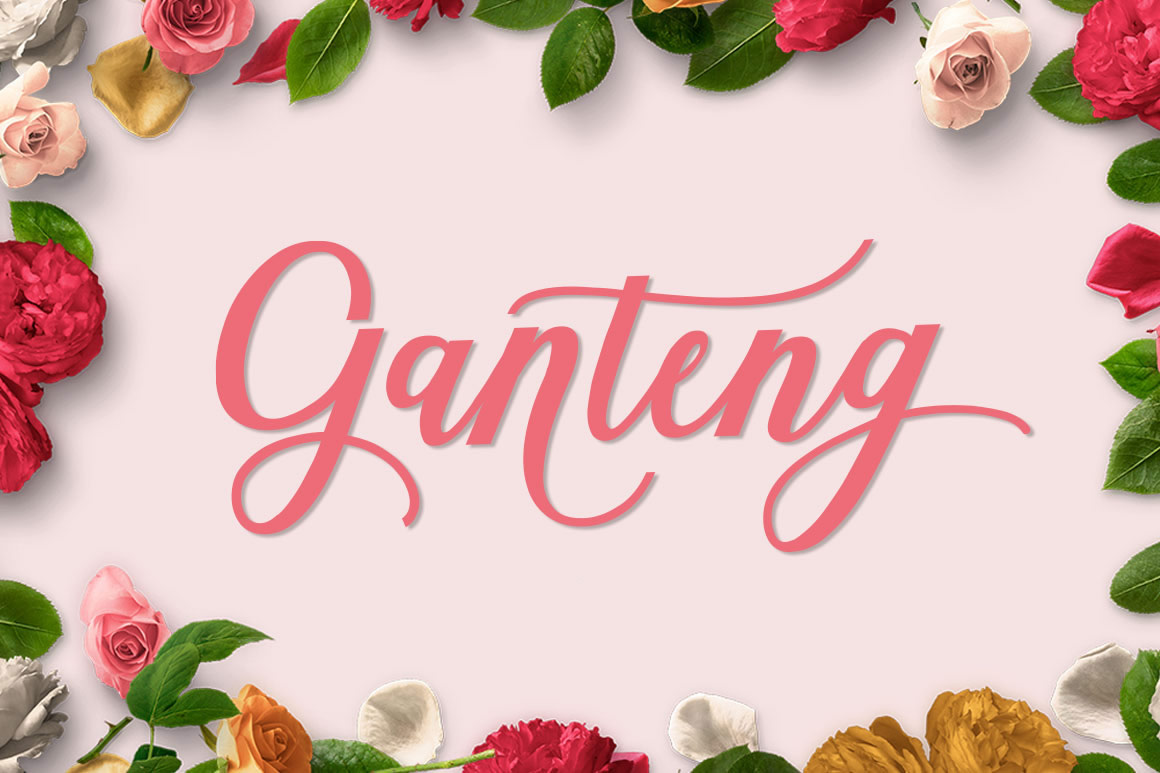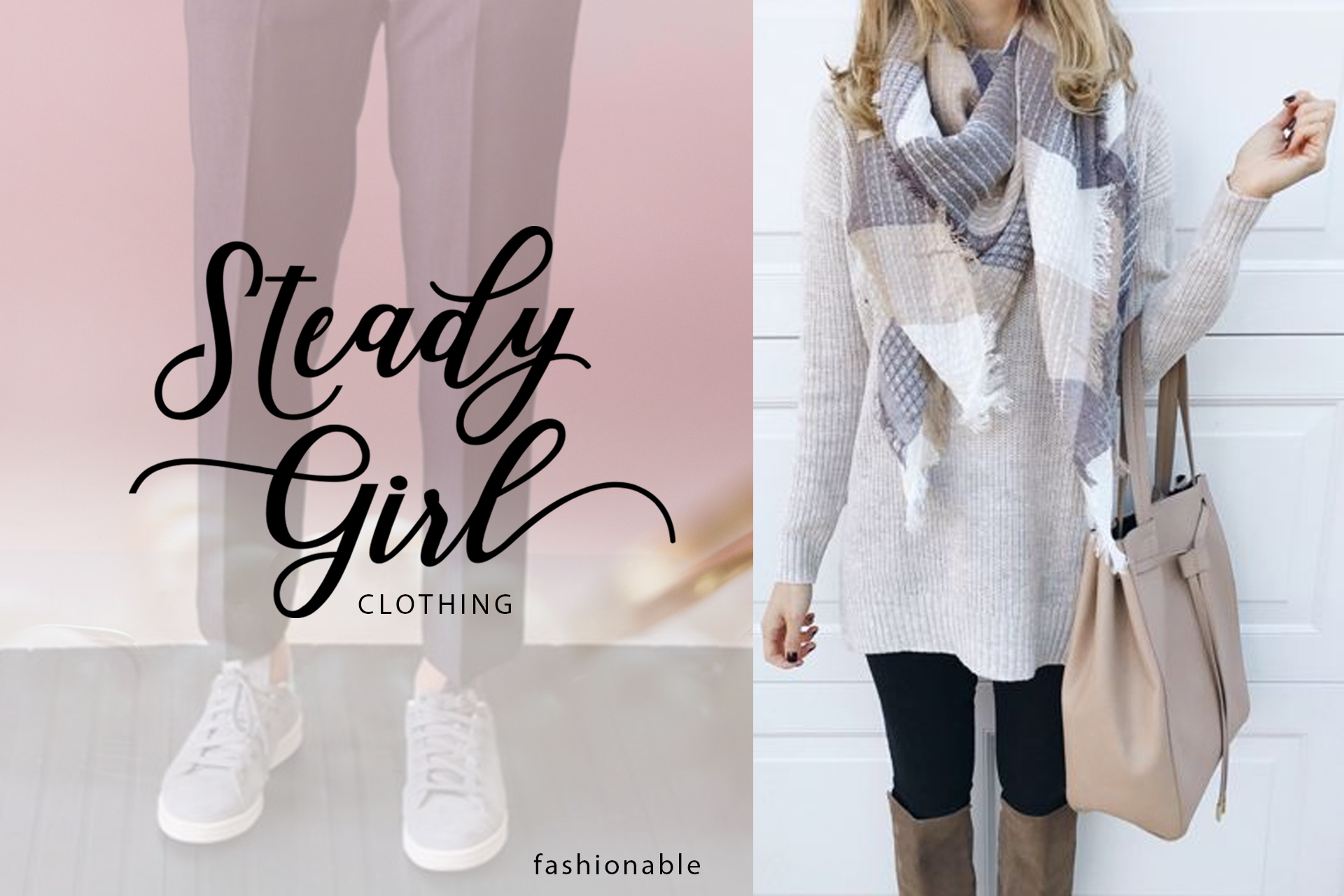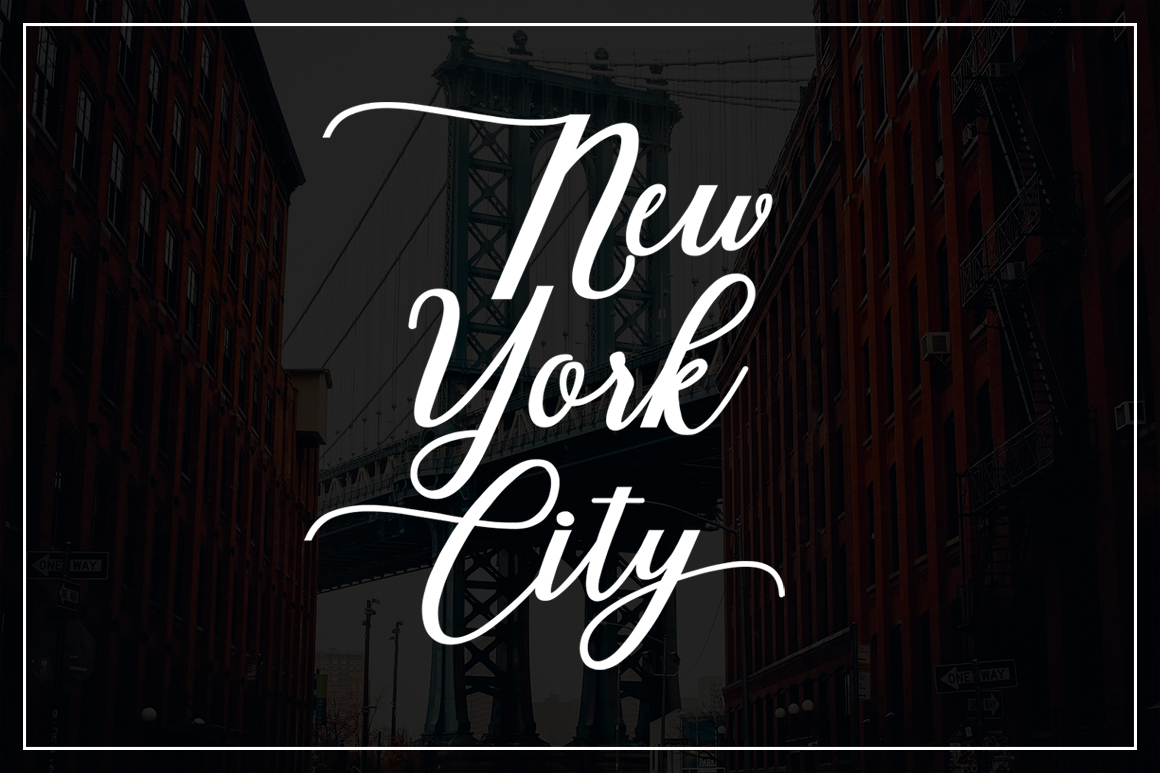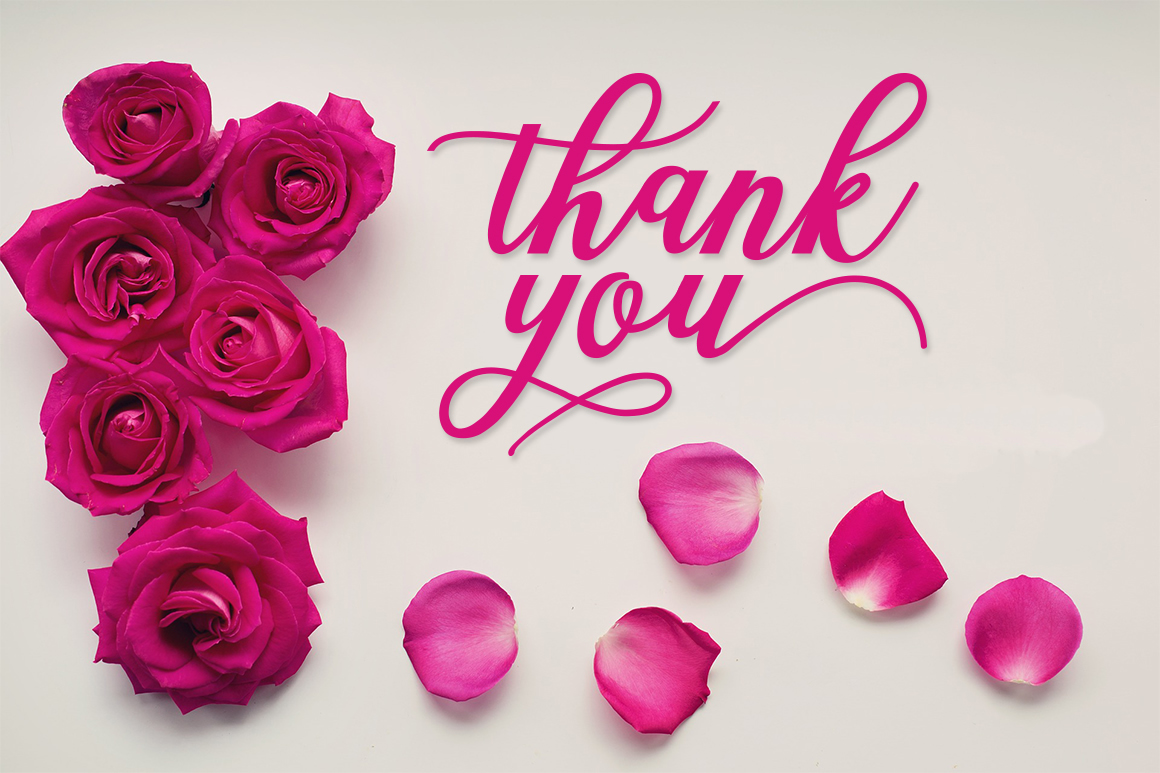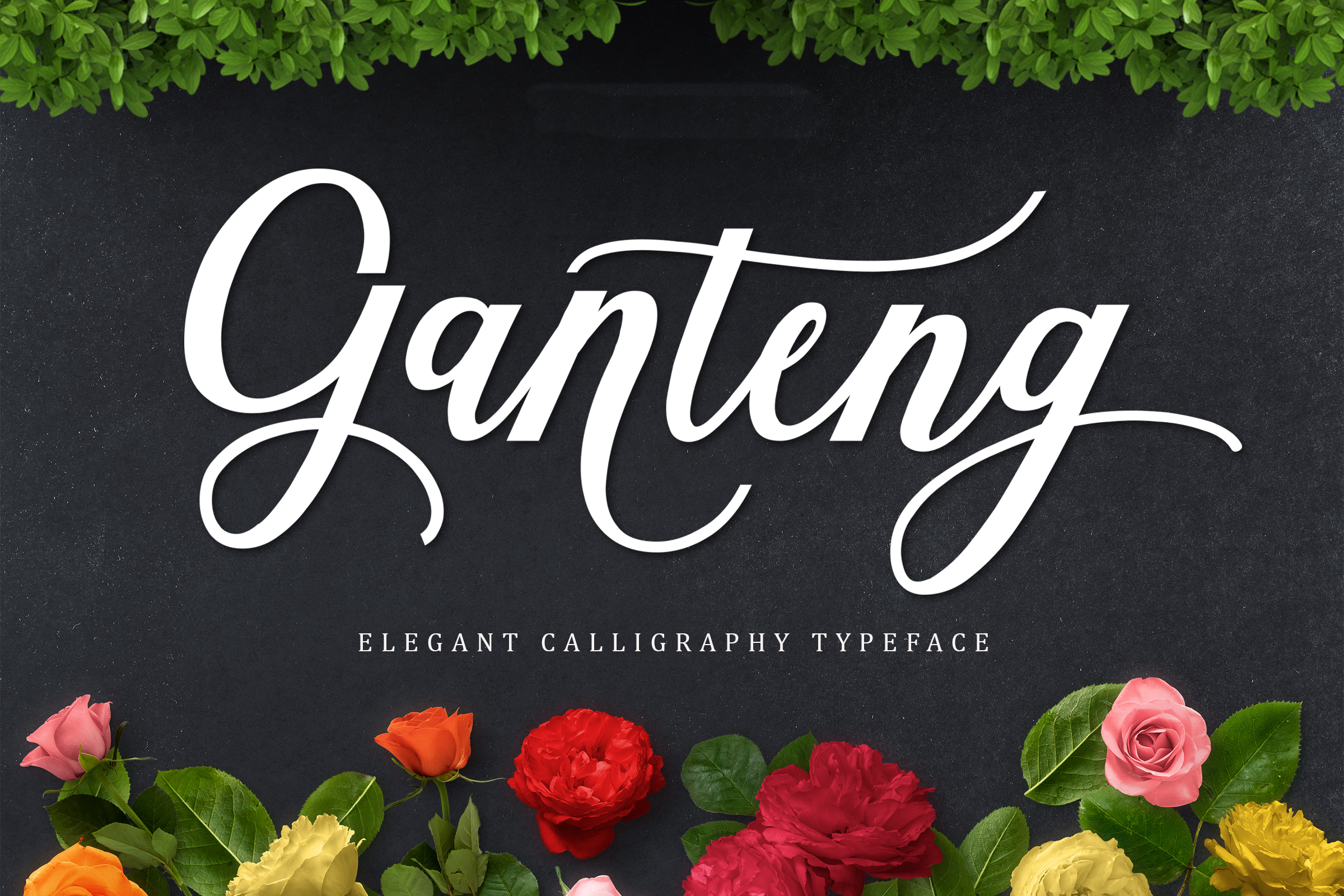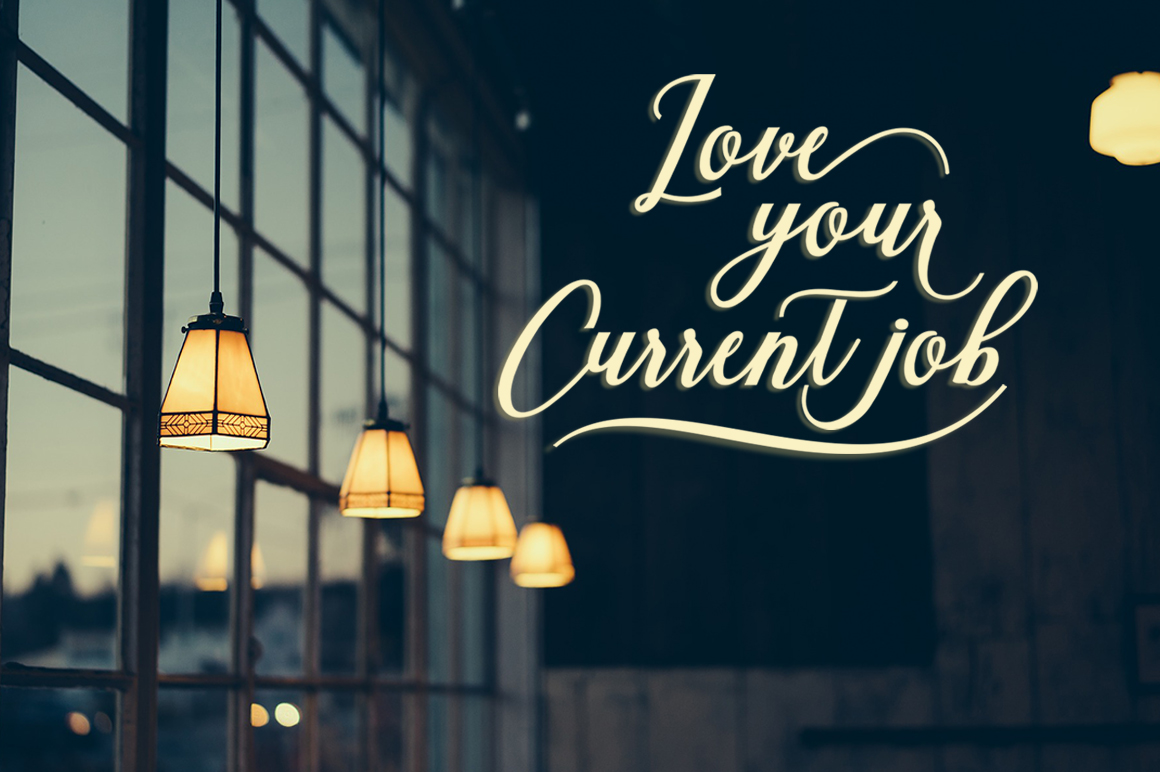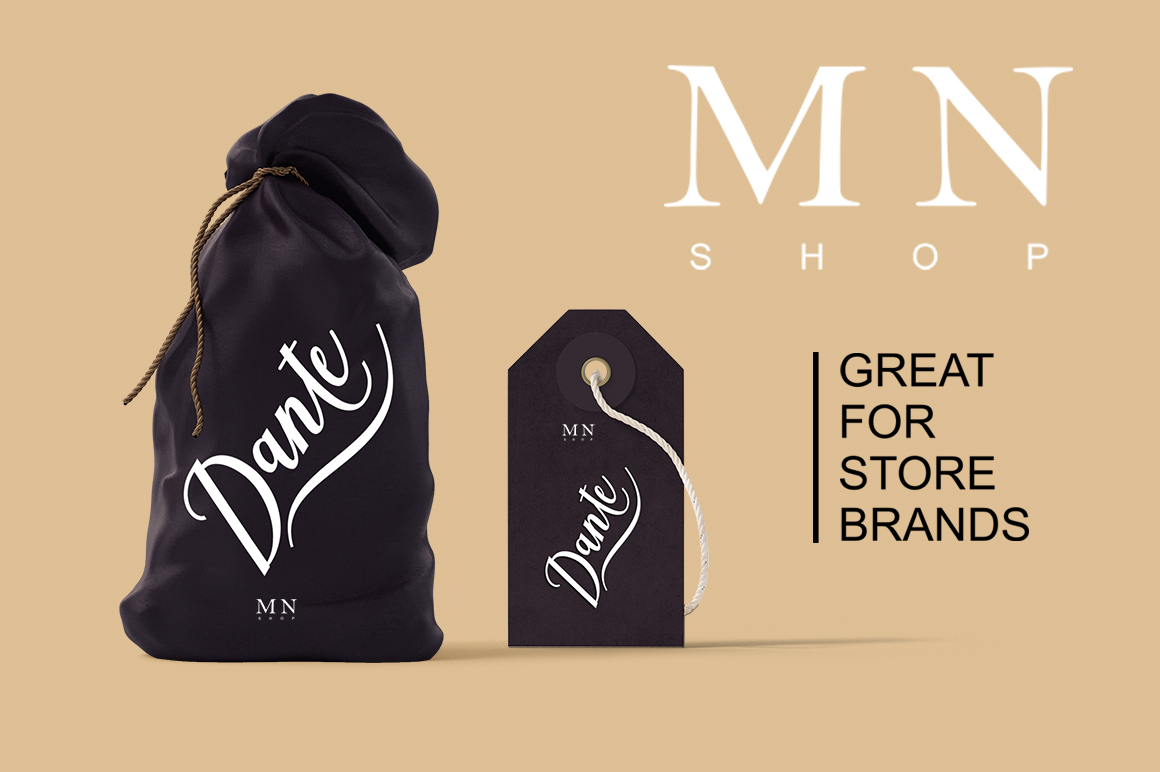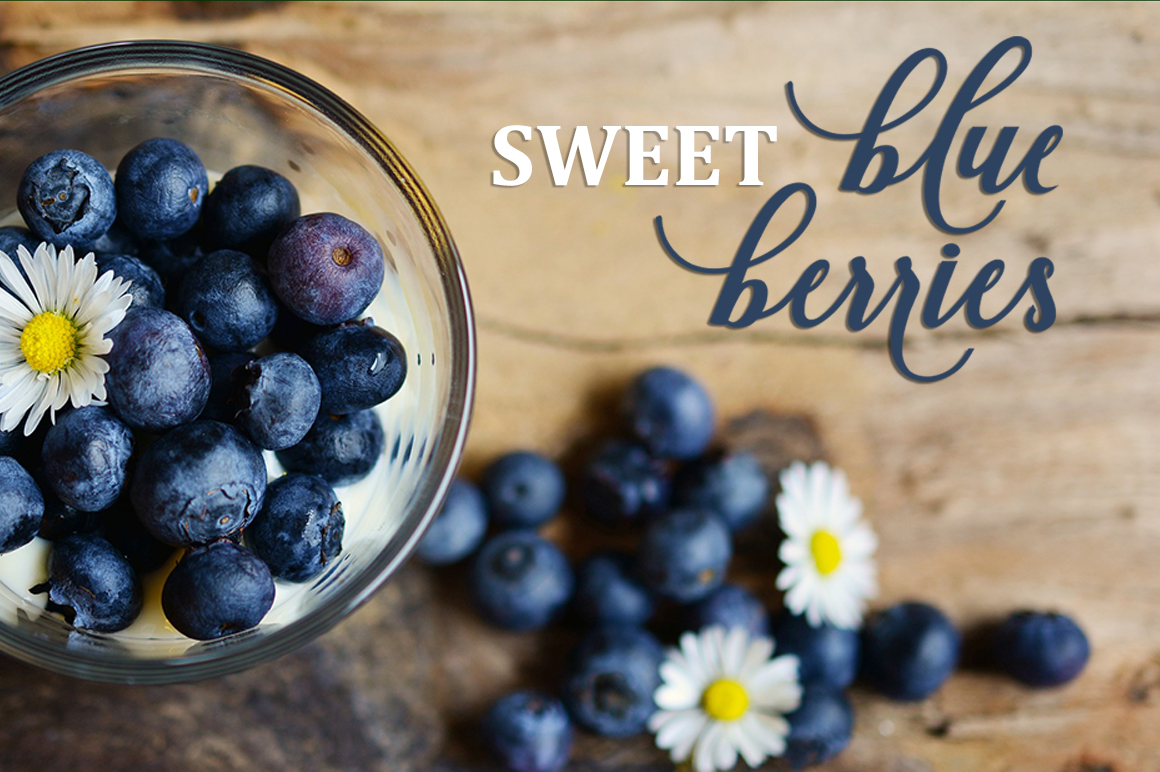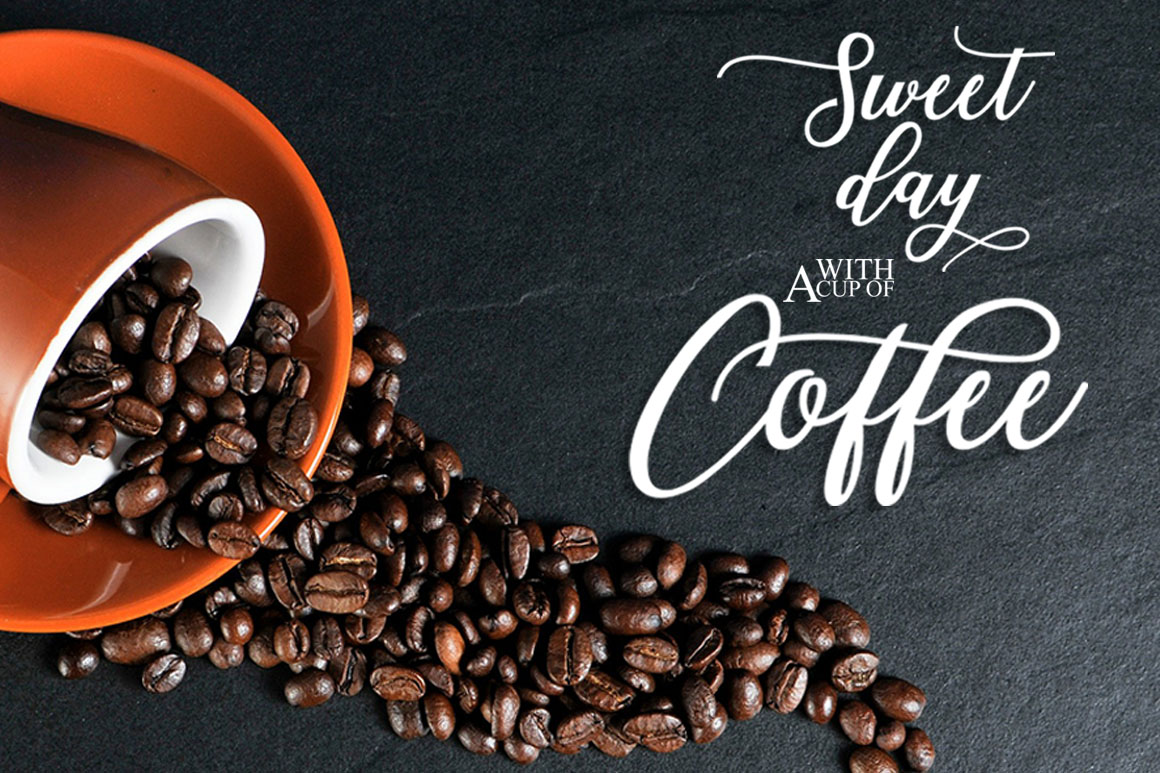
Ganteng Script Font
About Ganteng Script Font
The Ganteng Script is a stunning handwritten font.
Packed with loads of extra swashes, that work in any program, the Ganteng font is the ultimate tool in your design arsenal.
It’s bold curvy letters look great on many different types of designs and work great for web, print & cutting.